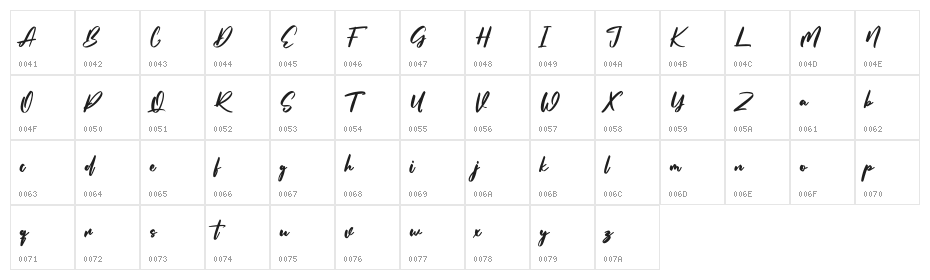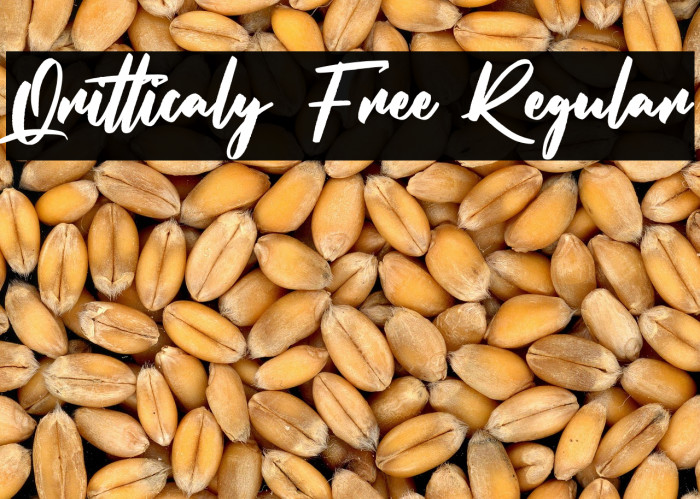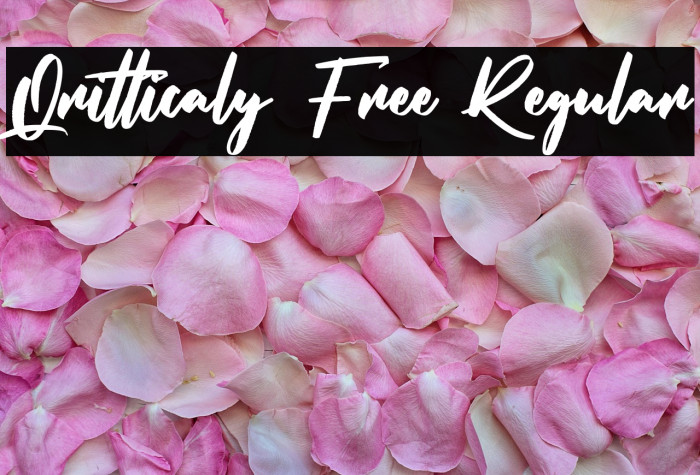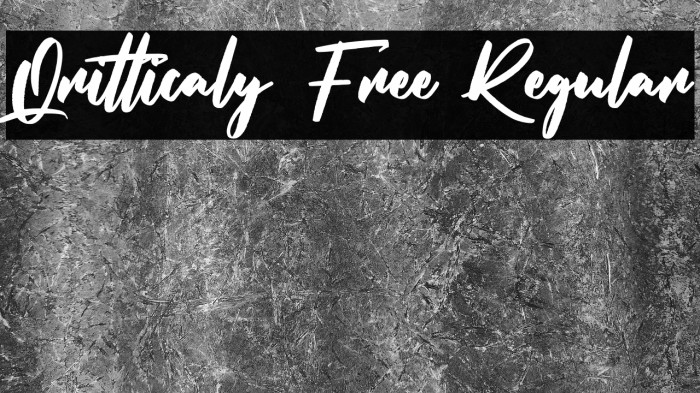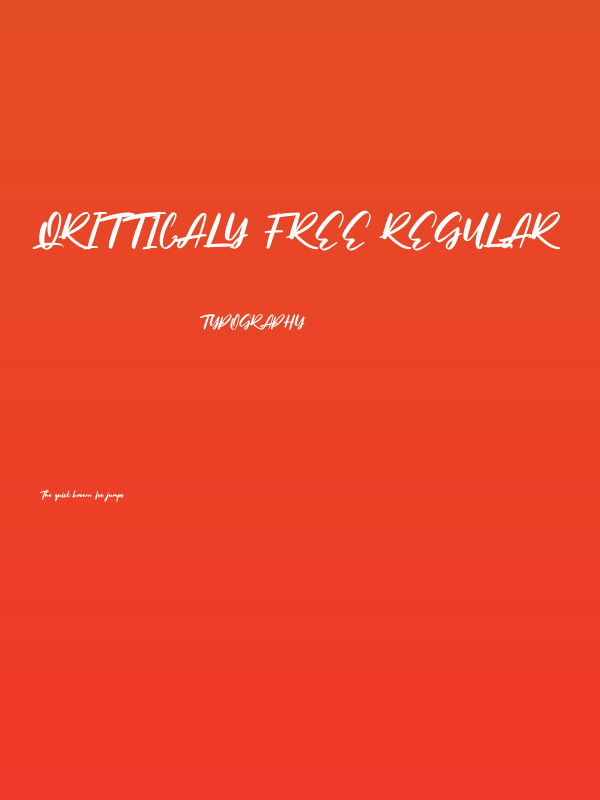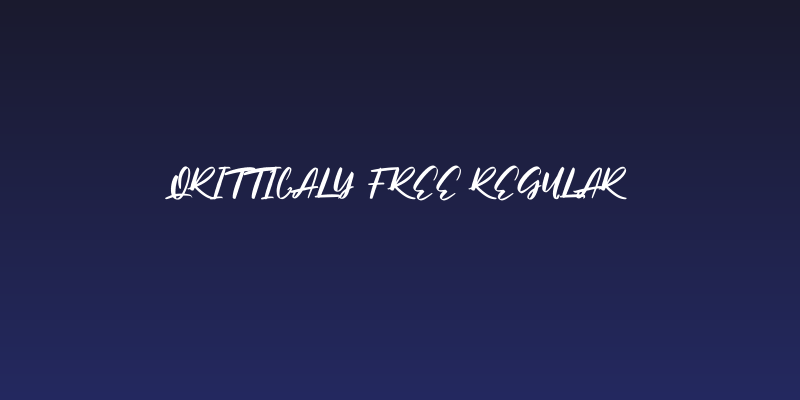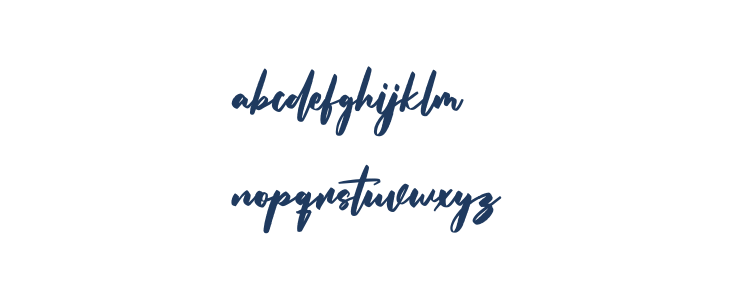
Qritticaly Free Regular Font
Qritticaly Free Regular Description
This font features a dynamic and flowing script style, characterized by its bold and expressive strokes. The letters are connected in a cursive manner, giving it a handwritten appearance. The uppercase letters are particularly striking, with sweeping curves and a sense of movement that adds a lively and energetic feel. The lowercase letters maintain the same fluidity, ensuring consistency throughout the text. This font is ideal for projects that require a personal touch or a sense of elegance and sophistication. Its boldness makes it stand out, while the script style adds a touch of creativity and flair.
Use CaseLogos, Headlines, Invitations
Proposed ProjectsIdeal for invitations, greeting cards, branding, and logo design.